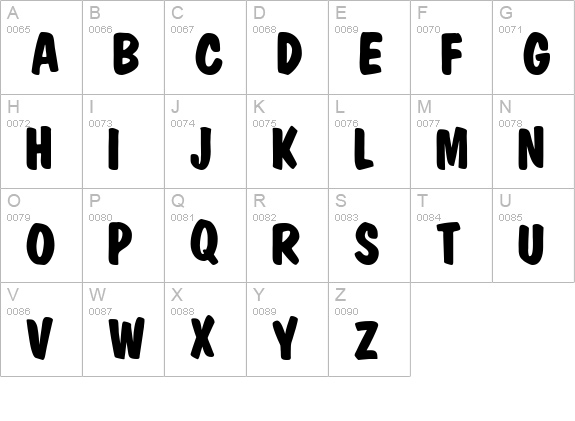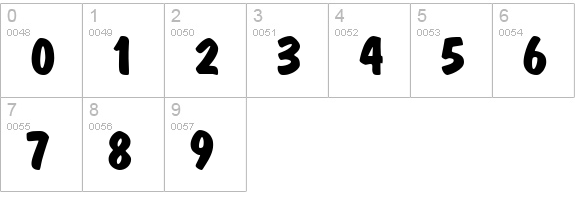
MktBold Plain: Font Details
MktBold Plain is a versatile and modern font that exudes confidence and sophistication. With its clean lines and bold presence, this font is perfect for making a statement in any design project. Whether you're creating a sleek logo, eye-catching headlines, or stylish branding materials, MktBold Plain is sure to elevate your work to the next level. The best part? MktBold Plain is available for free download at FontsMarket.com. This means you can easily access this premium font without having to break the bank. Don't miss out on the opportunity to add MktBold Plain to your font collection and take your designs to new heights. Download it now and start creating stunning visuals with ease.